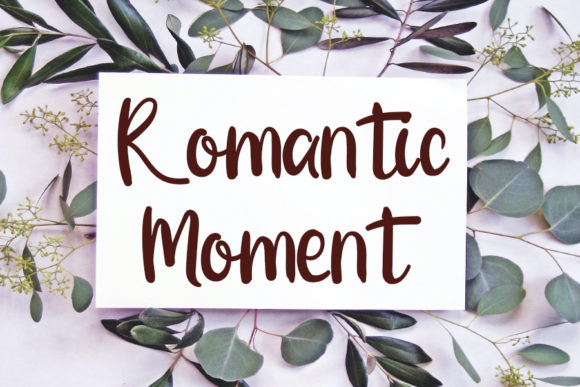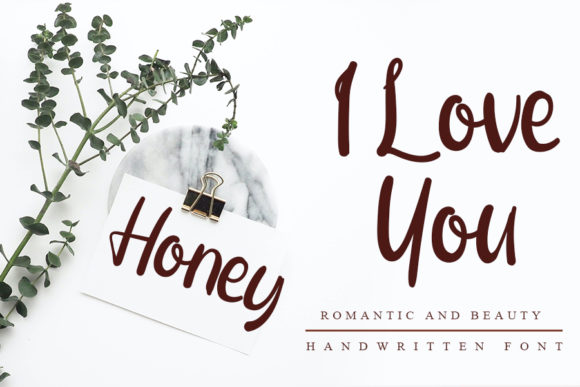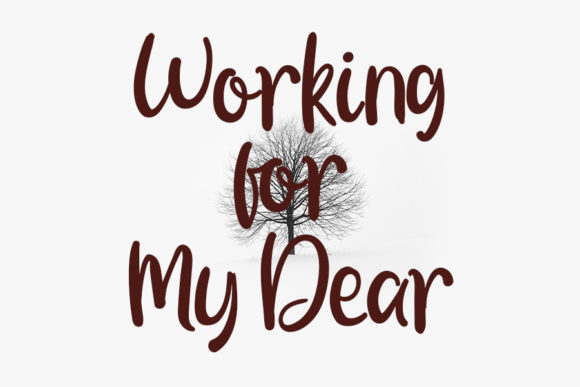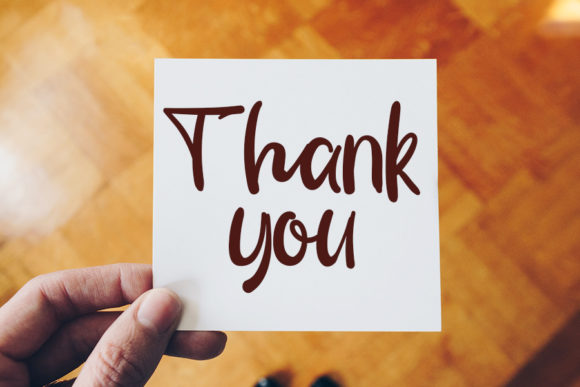
Sweet Seventeen Font
About Sweet Seventeen Font
Introducing “Sweet Seventeen,” a flowing handwritten font that encapsulates the essence of elegance and youthful charm. Its captivating allure makes it a perfect choice for a wide range of design projects, infusing a touch of handcrafted sophistication into every creation. Whether you’re working on invitations, branding, quotes, or any other design, “Sweet Seventeen” will capture your heart with its distinct and timeless charm.
With “Sweet Seventeen,” you have a font that flows with graceful fluidity. Its authentic handwritten style brings an air of uniqueness and refinement to your designs, creating a visual experience that is both elegant and captivating. Whether you’re crafting chic invitations, playful quotes, or engaging branding, this font adds a layer of beauty that resonates with your audience.
The versatility of “Sweet Seventeen” lies in its ability to seamlessly complement various design styles and themes. Its flowing and elegant appeal makes it a dependable choice for all your creative endeavors.
Unleash your creativity and witness how “Sweet Seventeen” enhances your designs with its elegant and refined touch. Whether you’re designing intricate logos, crafting youthful stationery, or producing eye-catching social media graphics, this font will infuse your work with a sense of charm and allure that captivates attention.
So, embrace the allure of “Sweet Seventeen” and let it become a beloved asset in your design toolkit. Allow its distinct and timeless style to inspire your designs, transforming them into spectacular works of art. Whether you’re an experienced designer or a passionate enthusiast, “Sweet Seventeen” empowers you to create visuals that stand out and make a statement. Let “Sweet Seventeen” be the key to unlocking elegance and youthful charm in your designs, and watch as it elevates your projects to new levels of excellence and distinction!